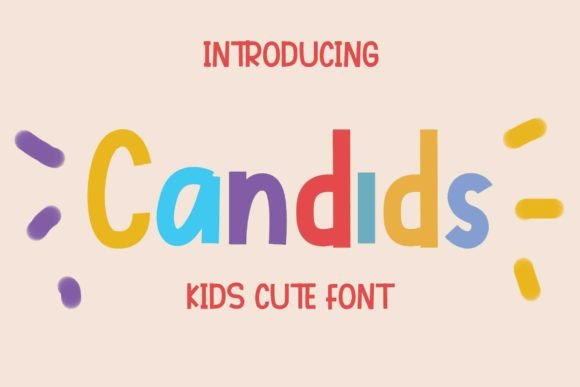
Welcome to the world of Candids Font, where cuteness and fun collide! This adorable display font is a treat for the eyes, with its irresistibly charming letters that dance across the page.
Picture this: the perfect book cover, where Candids Font's whimsical characters invite you into a realm of imagination. Or, imagine crafting heartfelt thank-you notes adorned with its adorable curves, spreading a smile with every stroke. The possibilities are endless!
But it's not just the aesthetics that make Candids Font irresistible. Its versatility is unmatched, making it a chameleon that can adapt to any occasion. Pair it with vibrant colors for a splash of joy or keep it elegant with muted tones – either way, it's sure to steal the show.
Join the creative revolution with Candids Font. Its enchanting design will captivate your audience, evoking emotions and leaving a lasting impression. Whether you're designing for children's adventures or creating heartwarming messages, Candids Font will add a sprinkle of magic to your creations.
So, why settle for ordinary when you can have extraordinary? Dive into the world of Candids Font today and unlock a world of endless creative possibilities!